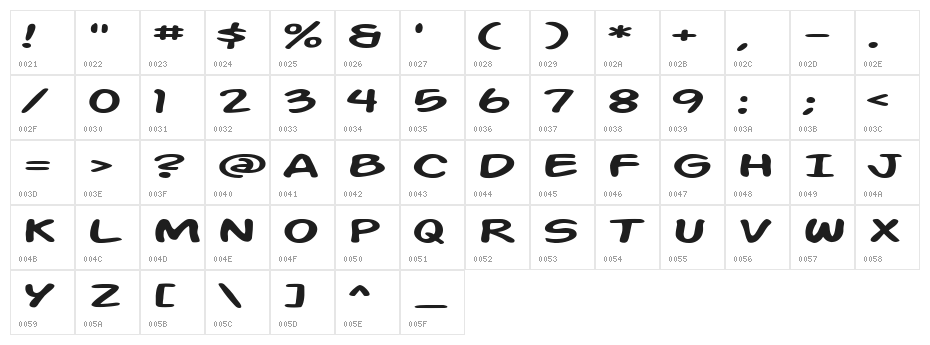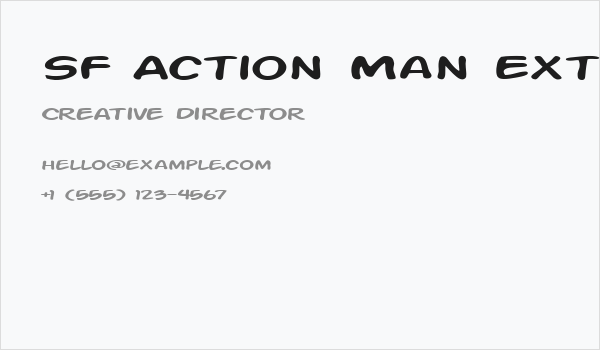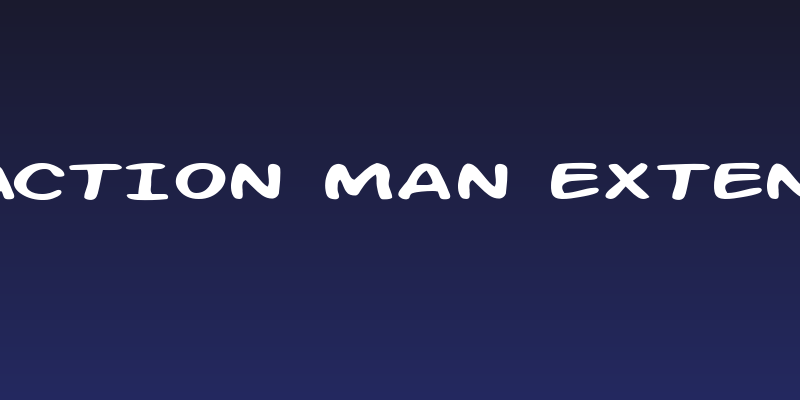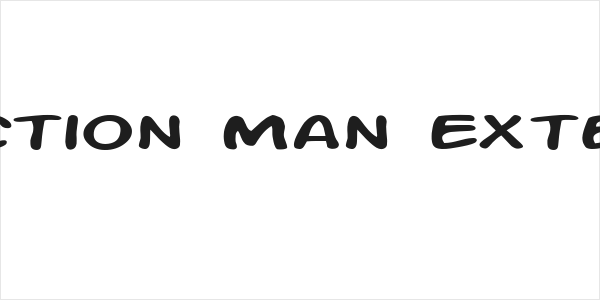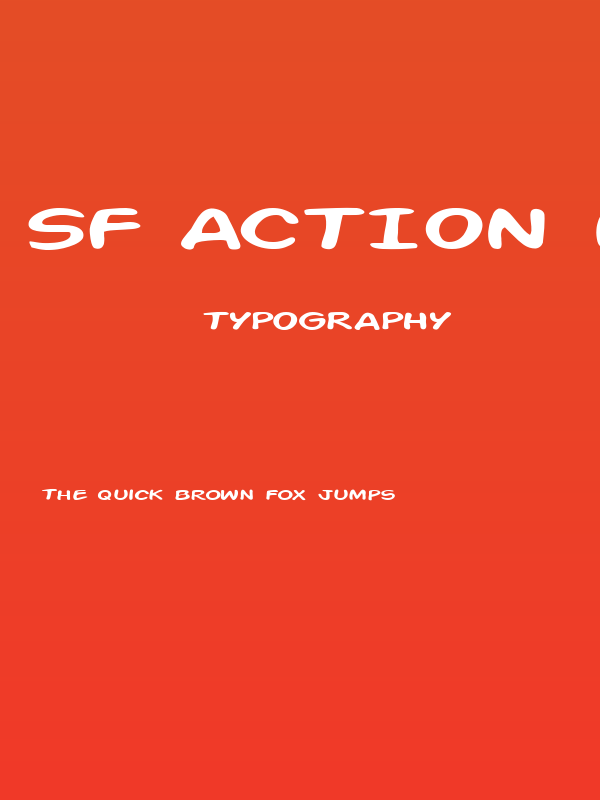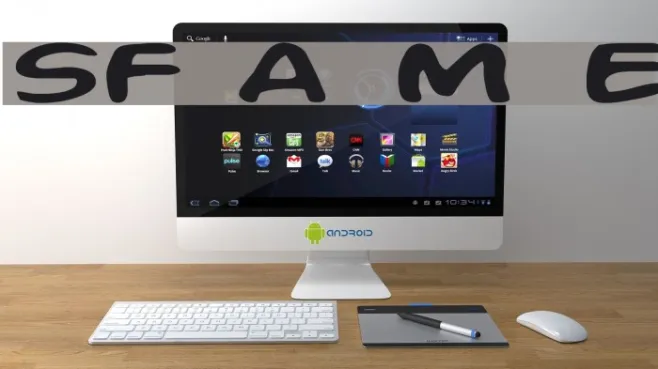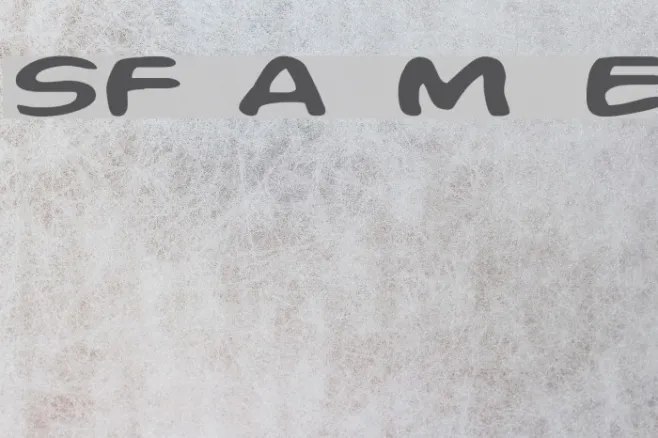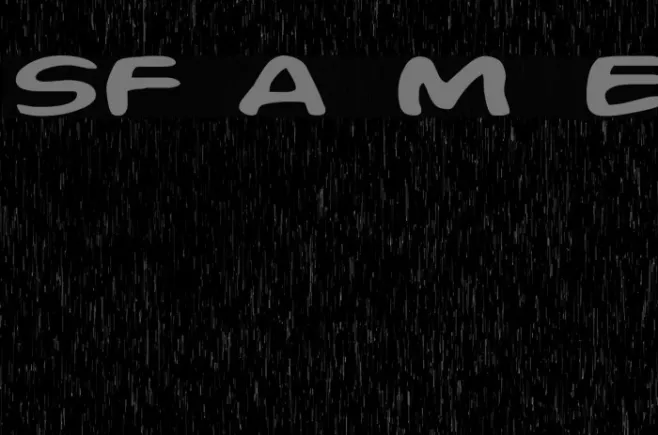
SF Action Man Extended Font
SF Action Man Extended Description
This font features a bold and playful style with rounded edges and a slightly slanted orientation, giving it a dynamic and energetic appearance. The characters are thick and well-defined, making them highly legible. The font maintains a consistent stroke width throughout, contributing to its boldness. It has a casual, handwritten feel, reminiscent of comic book lettering, which adds a sense of fun and informality. The spacing between characters is normal, ensuring readability while maintaining its lively character. This font is versatile, suitable for various creative projects that require a touch of personality and flair.
| Overall Style | Playful, Casual |
| Proposed Projects | Ideal for comic books, children's books, playful branding, posters, and social media graphics. |